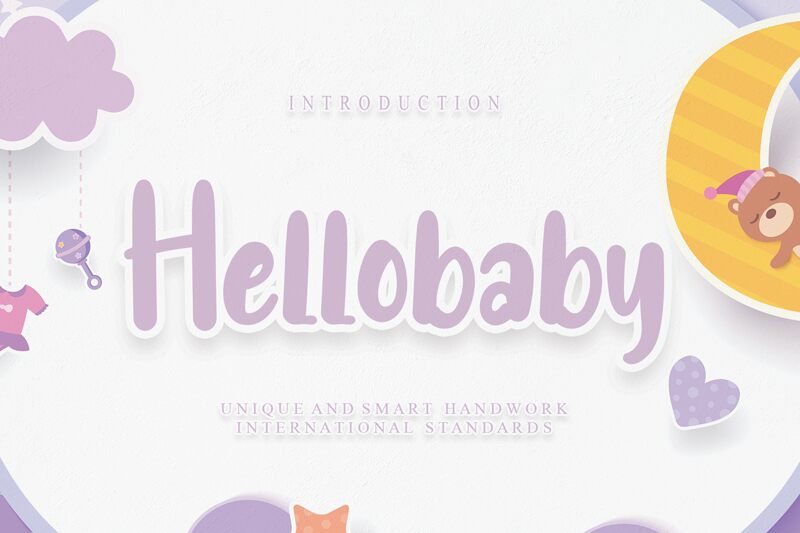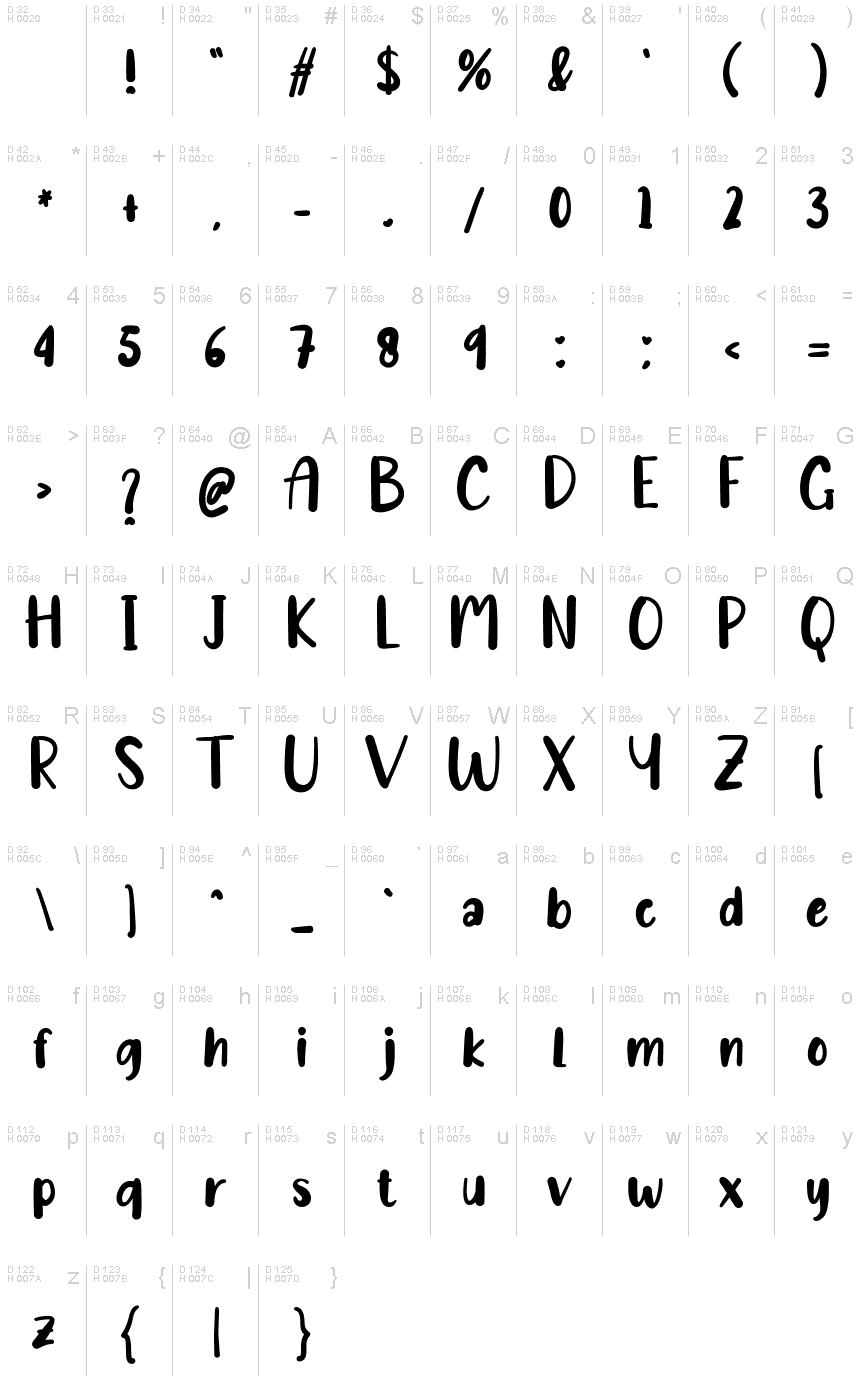
Hellobaby
Hellobaby font is a cute script typeface designed by Micro Andi.
the latest style letters are perfect for wall displays, wedding invitations, social media post logos, advertisements, product packaging, product designs, labels, photography, watermarks, invitations, stationery, and any project that requires taste handwriting.